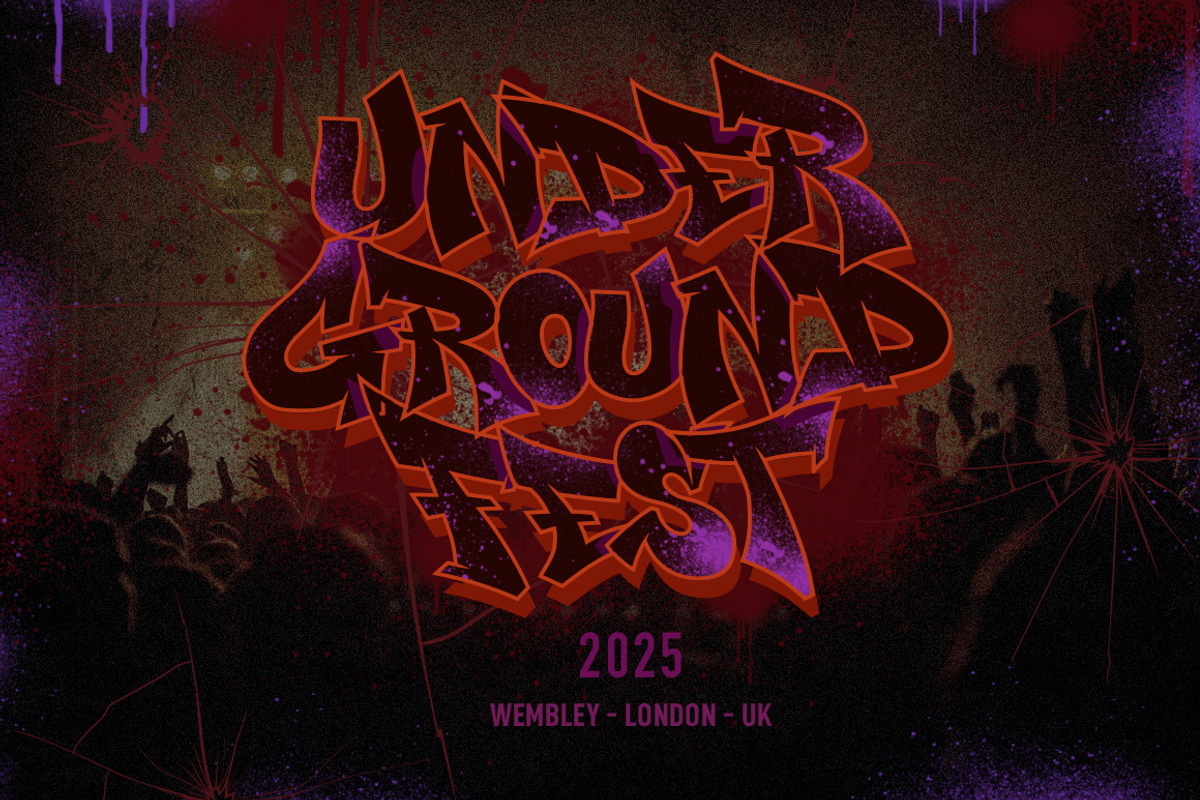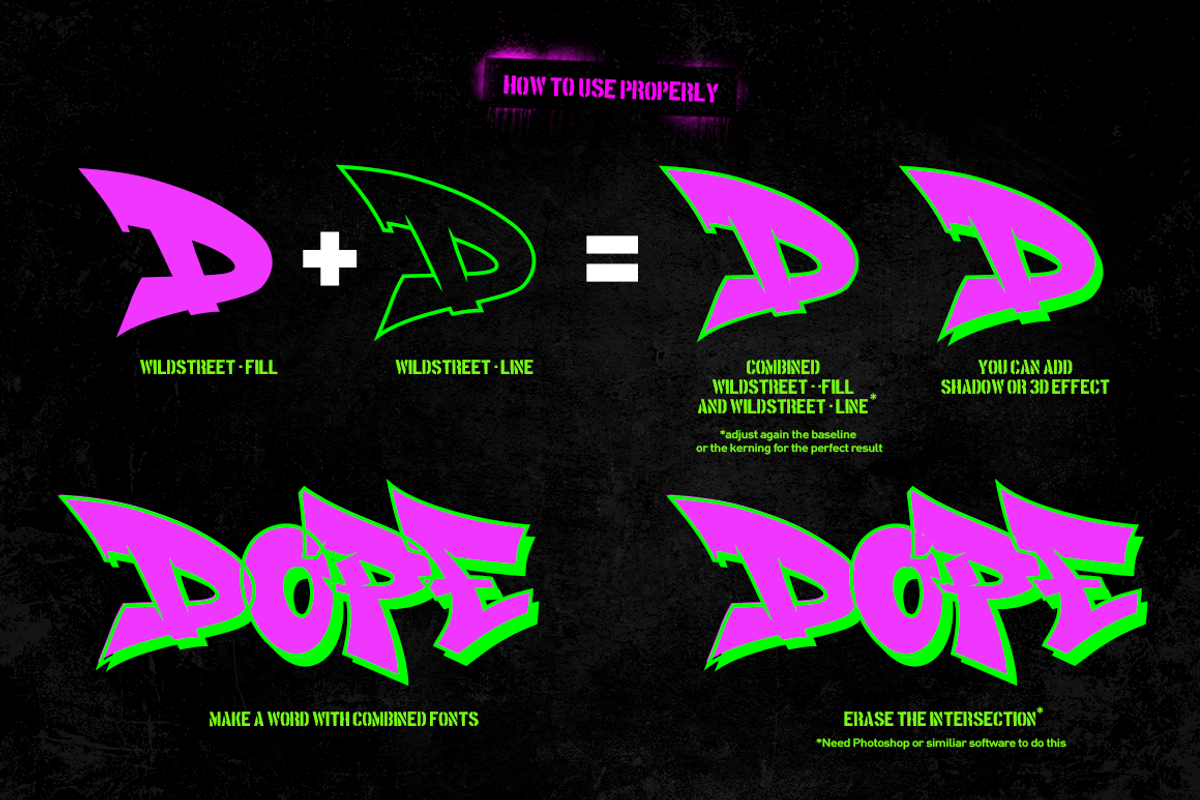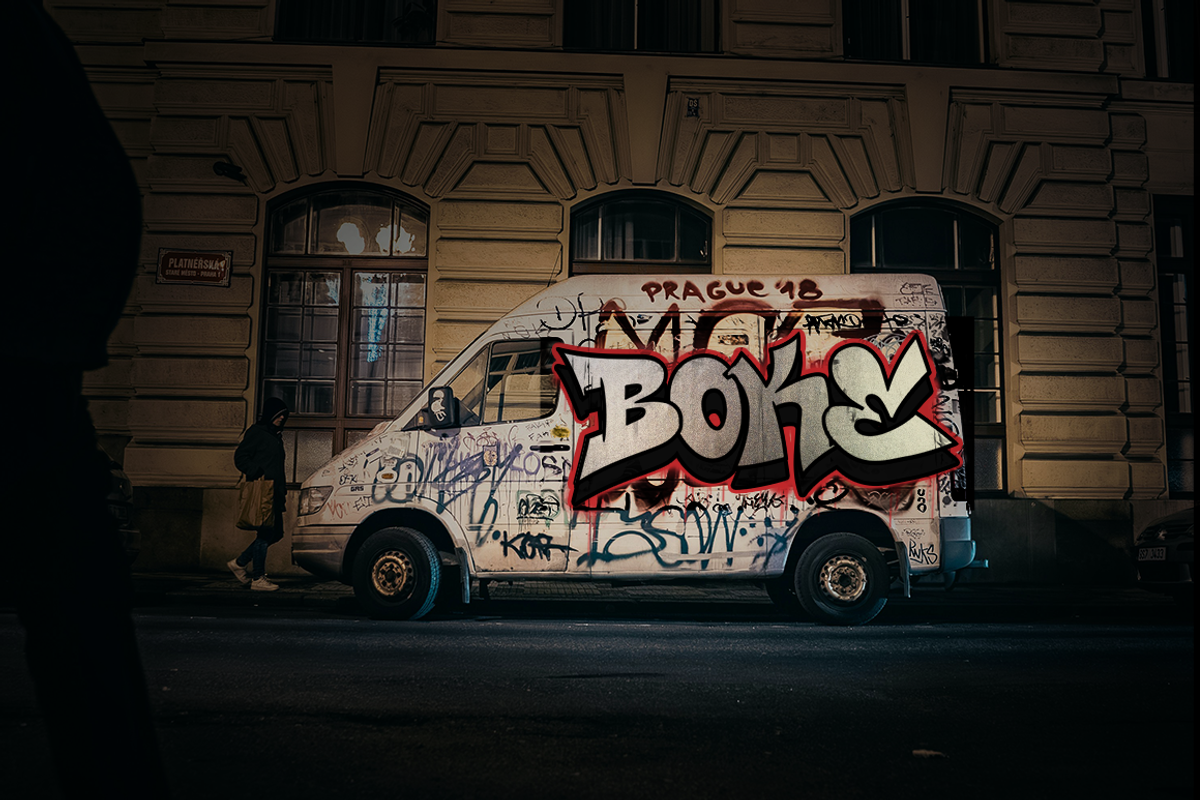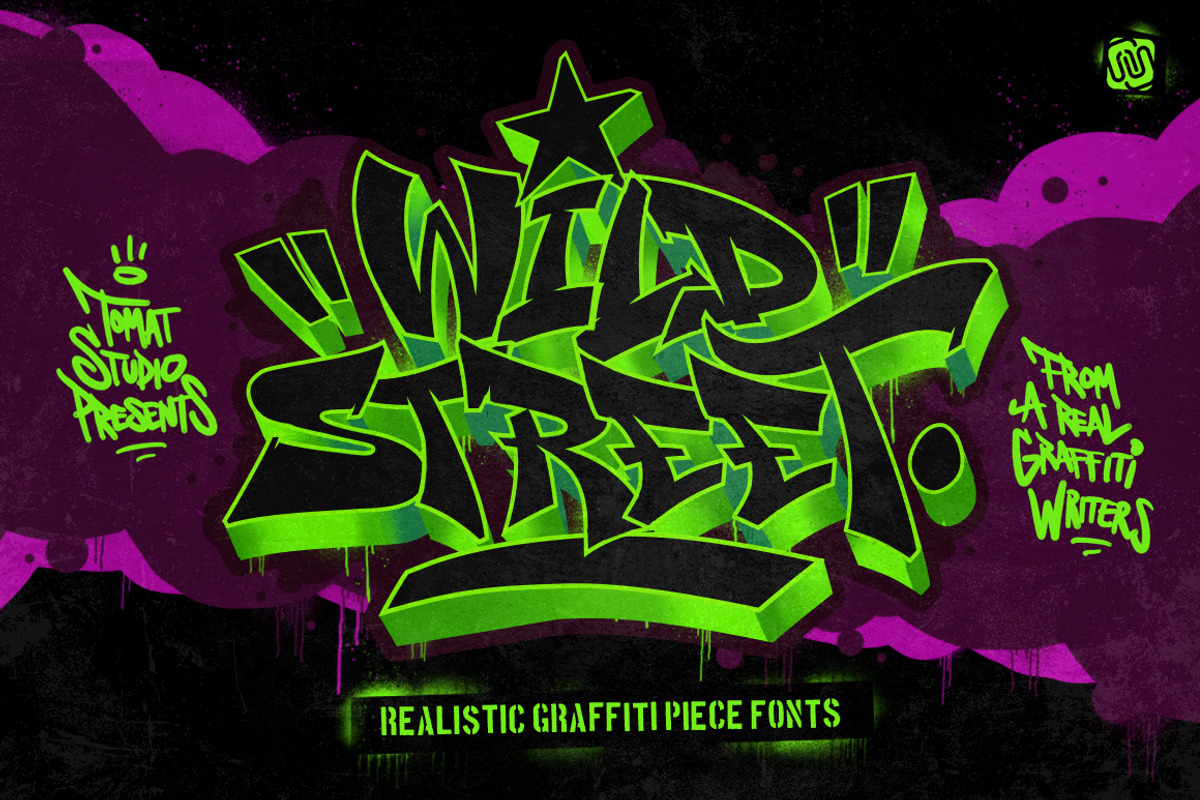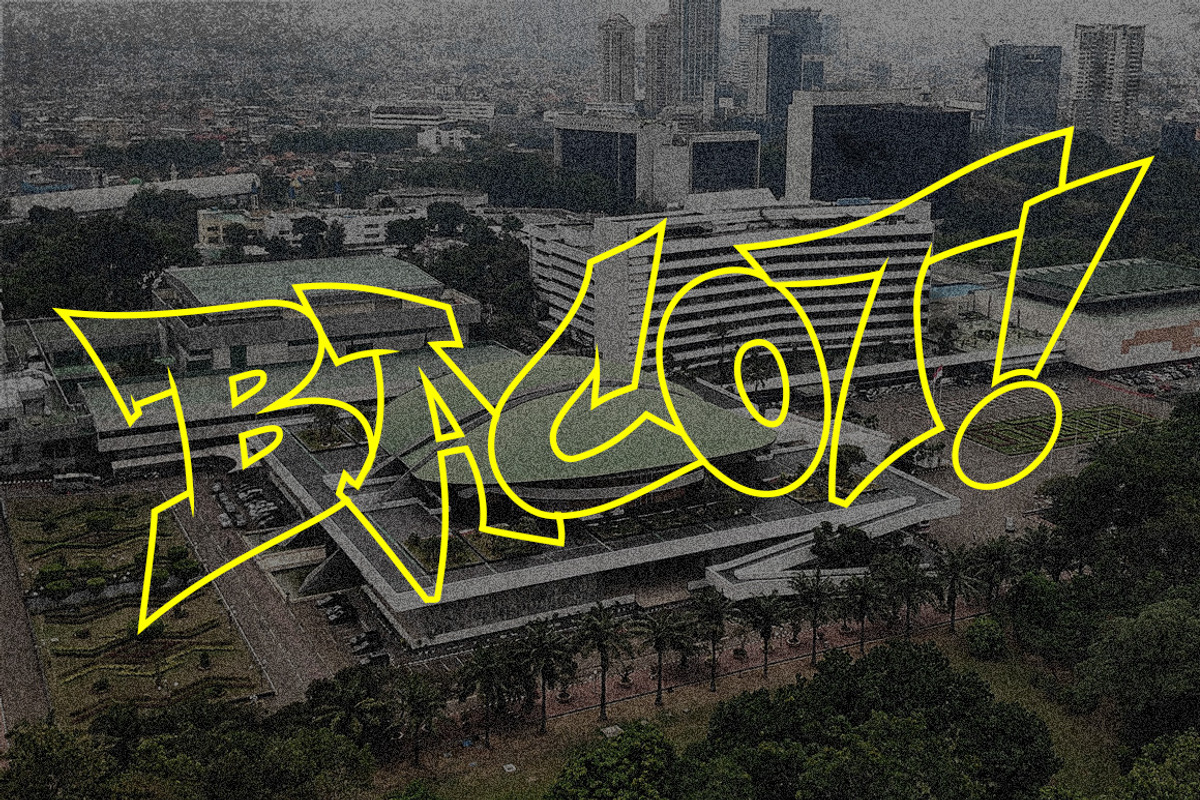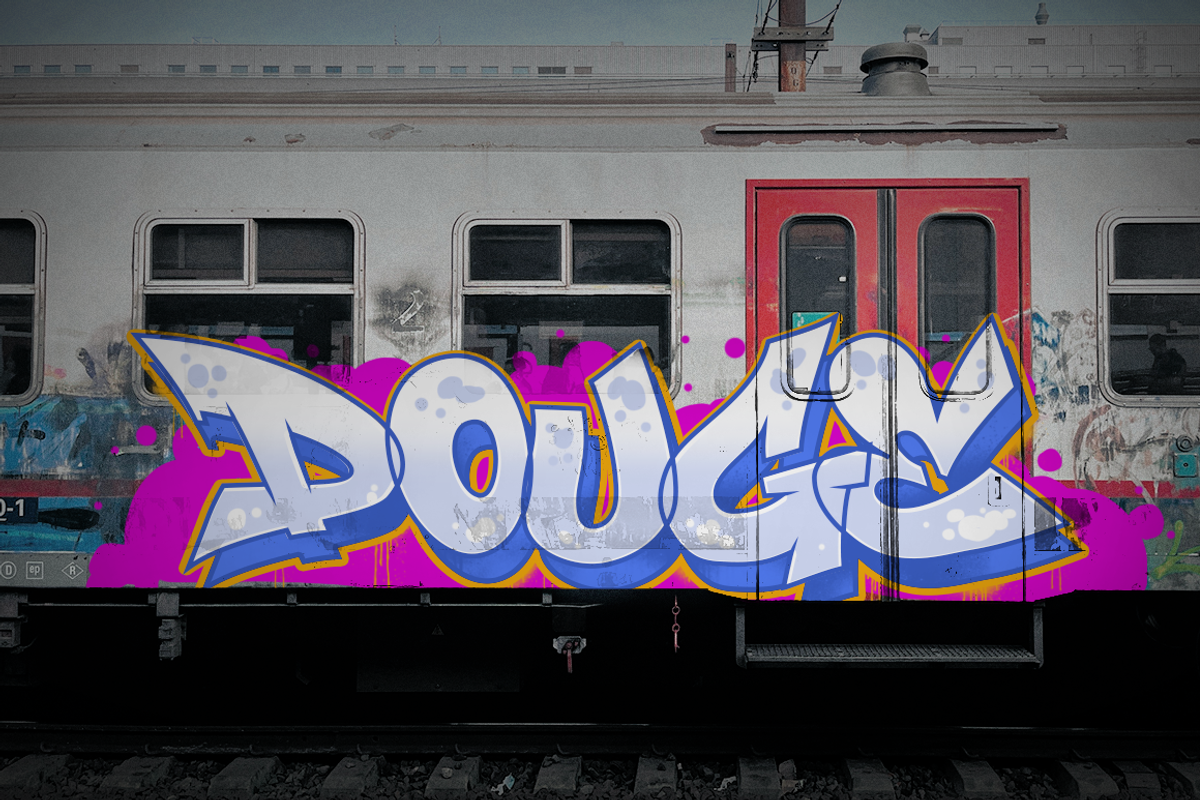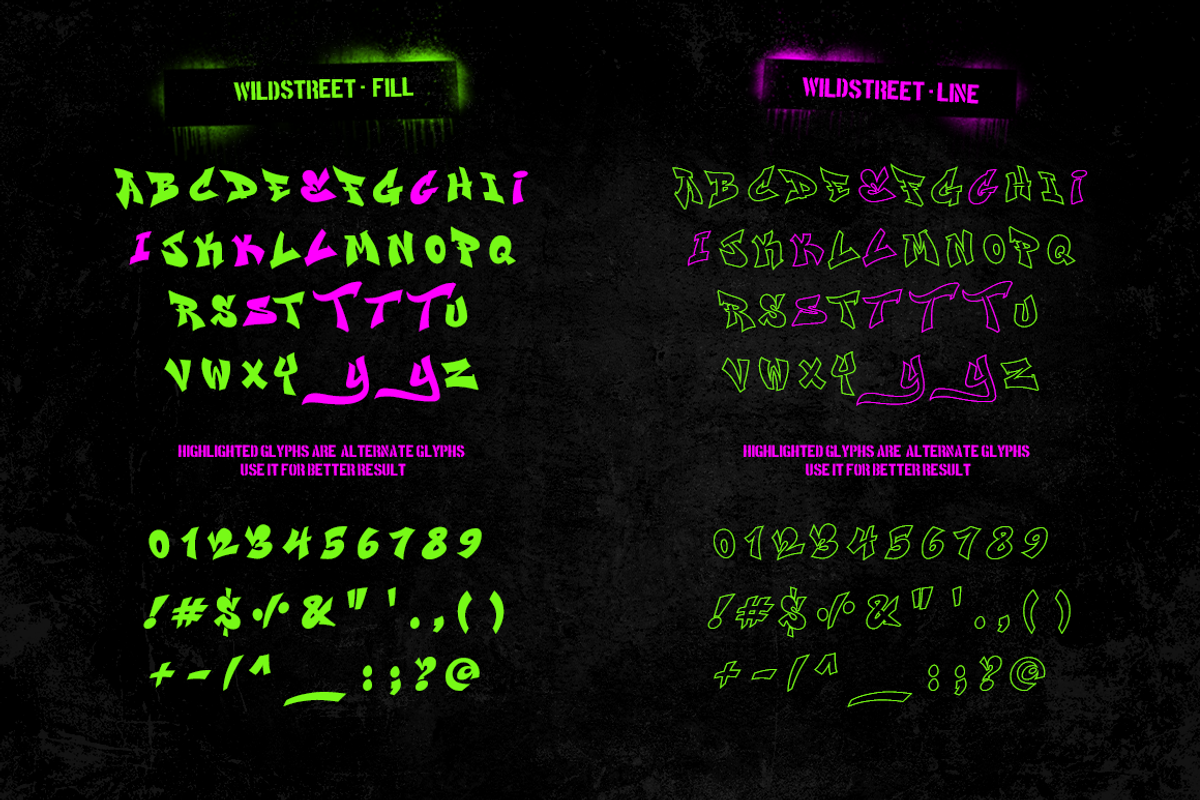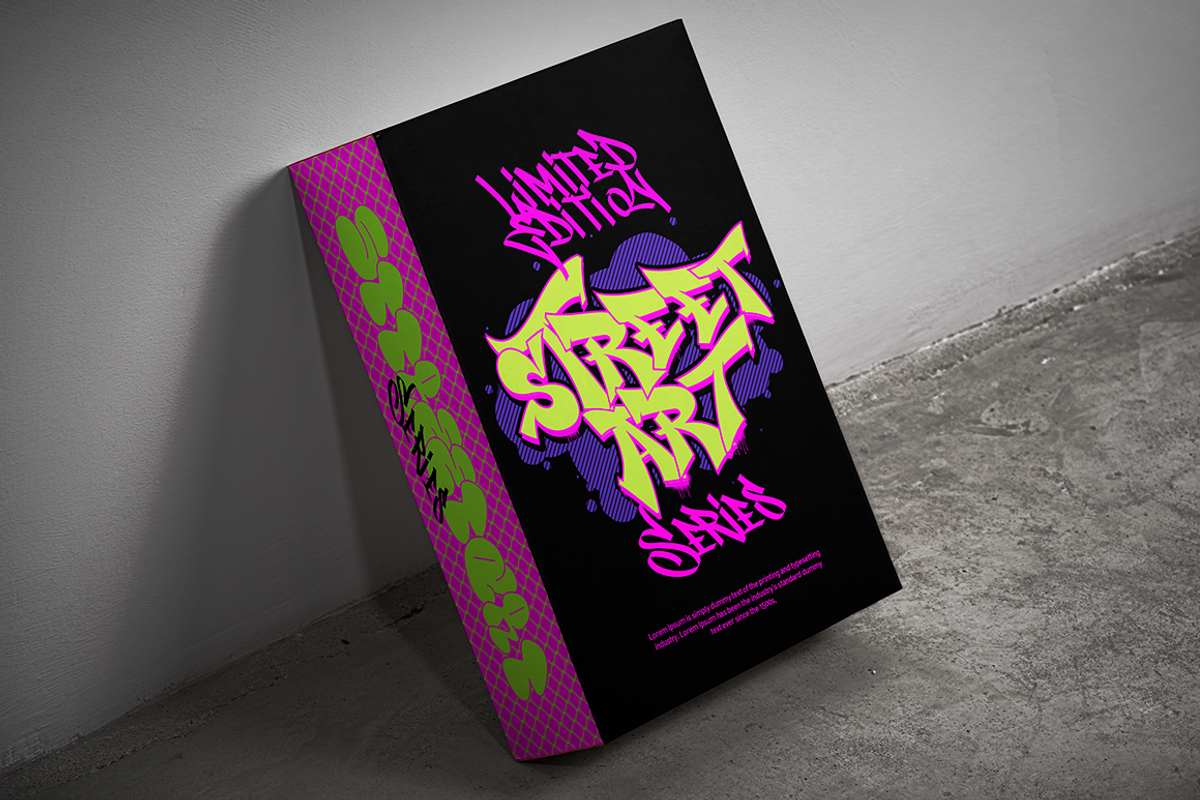
Graffiti Wildstreet Fonts
Wildstreet is a graffiti-style font inspired by the raw, energetic markings found on real urban walls. Designed by an authentic street artist with years of hands-on graffiti experience, this typeface captures the true spirit of street culture, bold, gritty, and undeniably real, giving your designs an edgy realism that stands out effortlessly.
Despite its wild street aesthetic, Wildstreet is incredibly easy to use across various design projects. It’s an excellent choice for themes related to street art, hip-hop, urban grunge, or any creative work that needs a strong underground vibe. While the font is highly versatile, I still recommend adjusting kerning and baseline settings to perfectly match your personal style and visual goals.
- Wildstreet-Fill
- Wildstreet-Line
These two versions are designed to complement each other, giving you more flexibility and creative combinations to elevate your artwork.